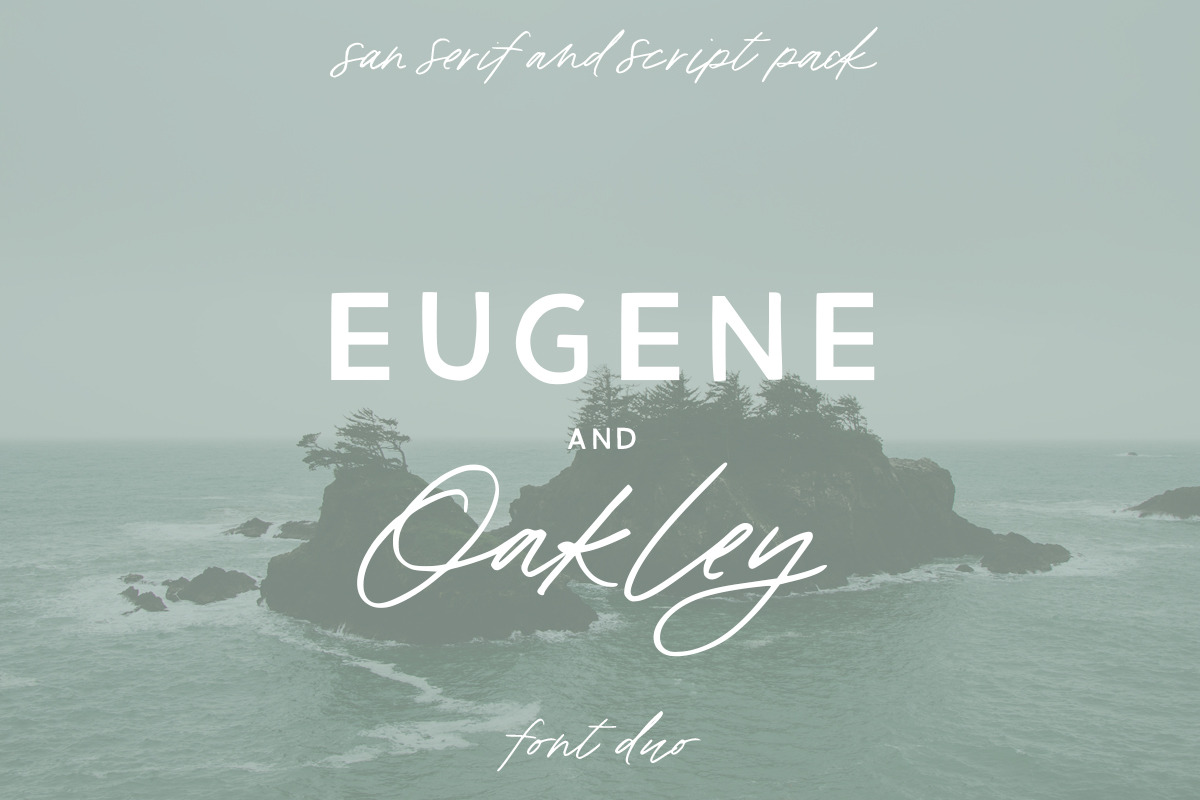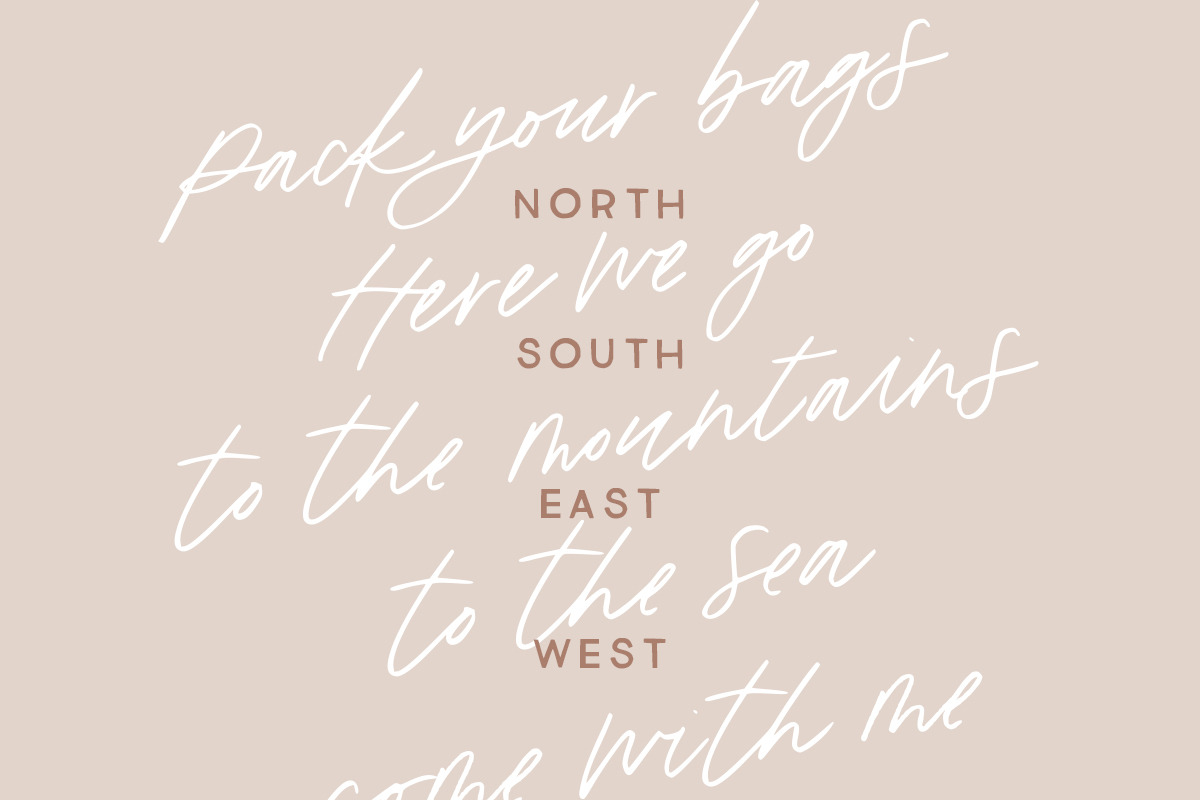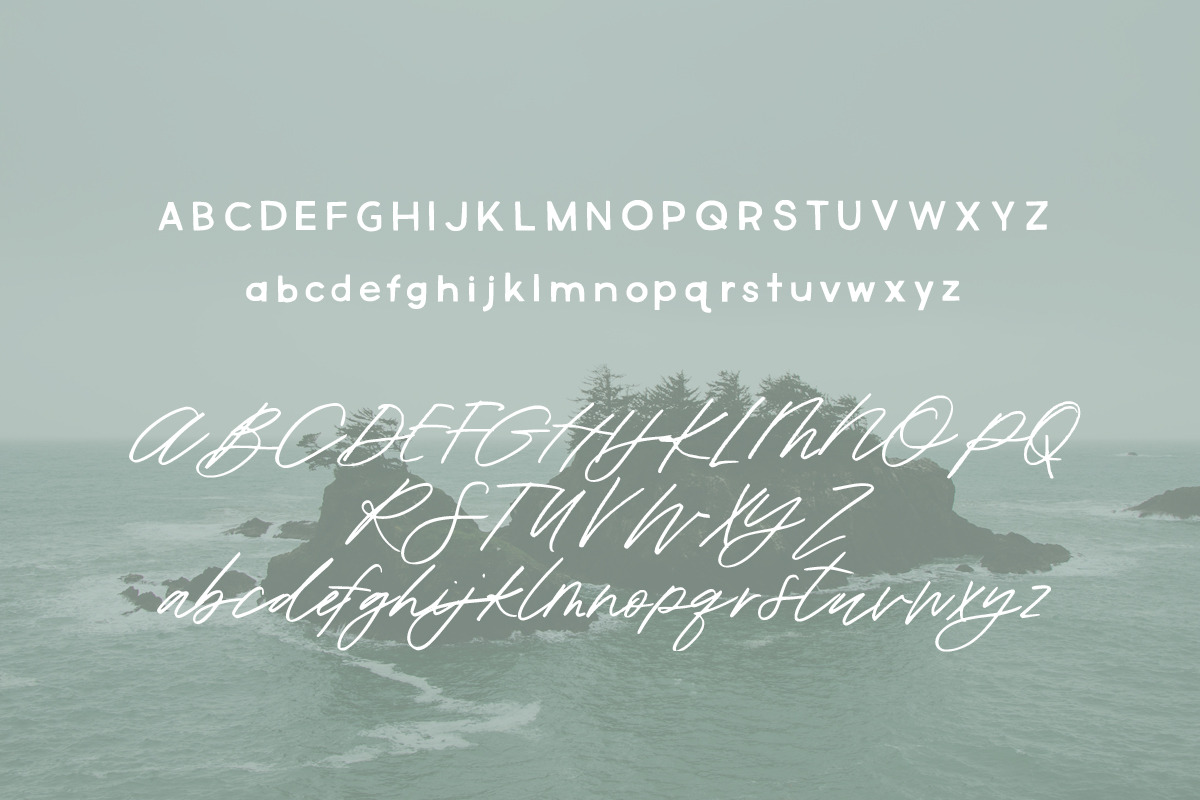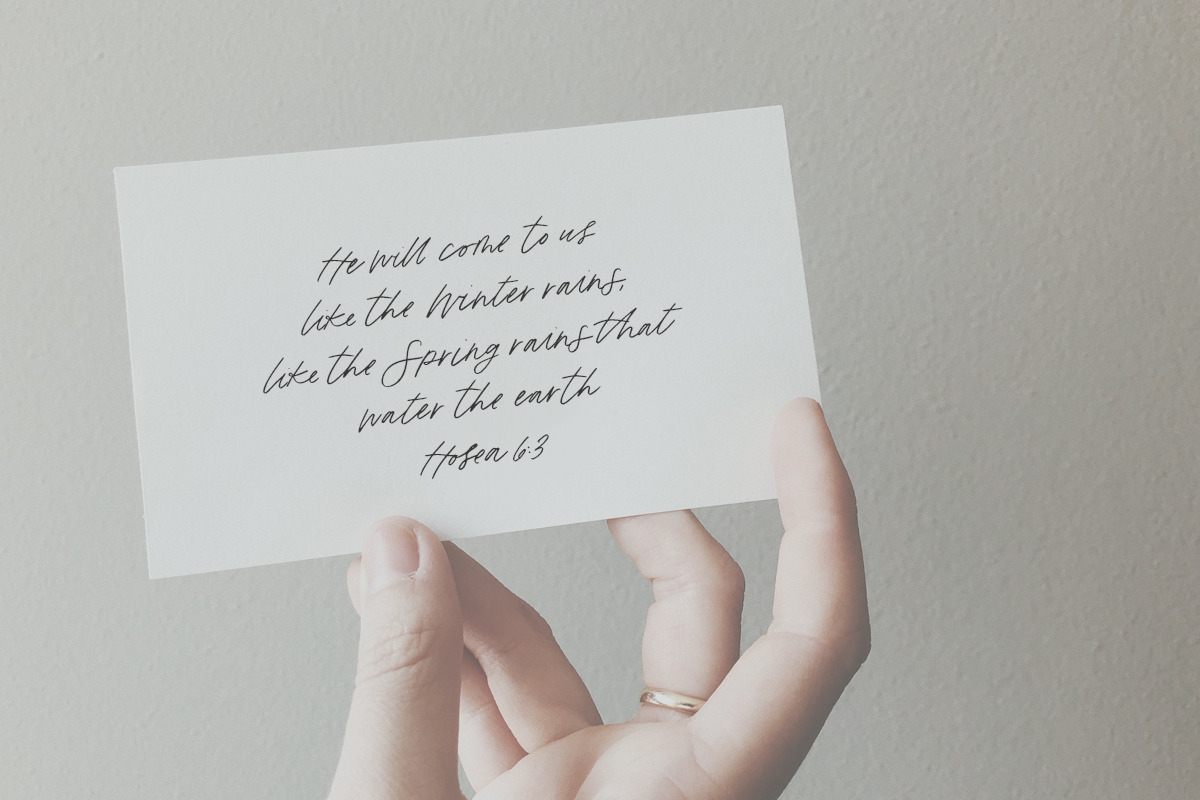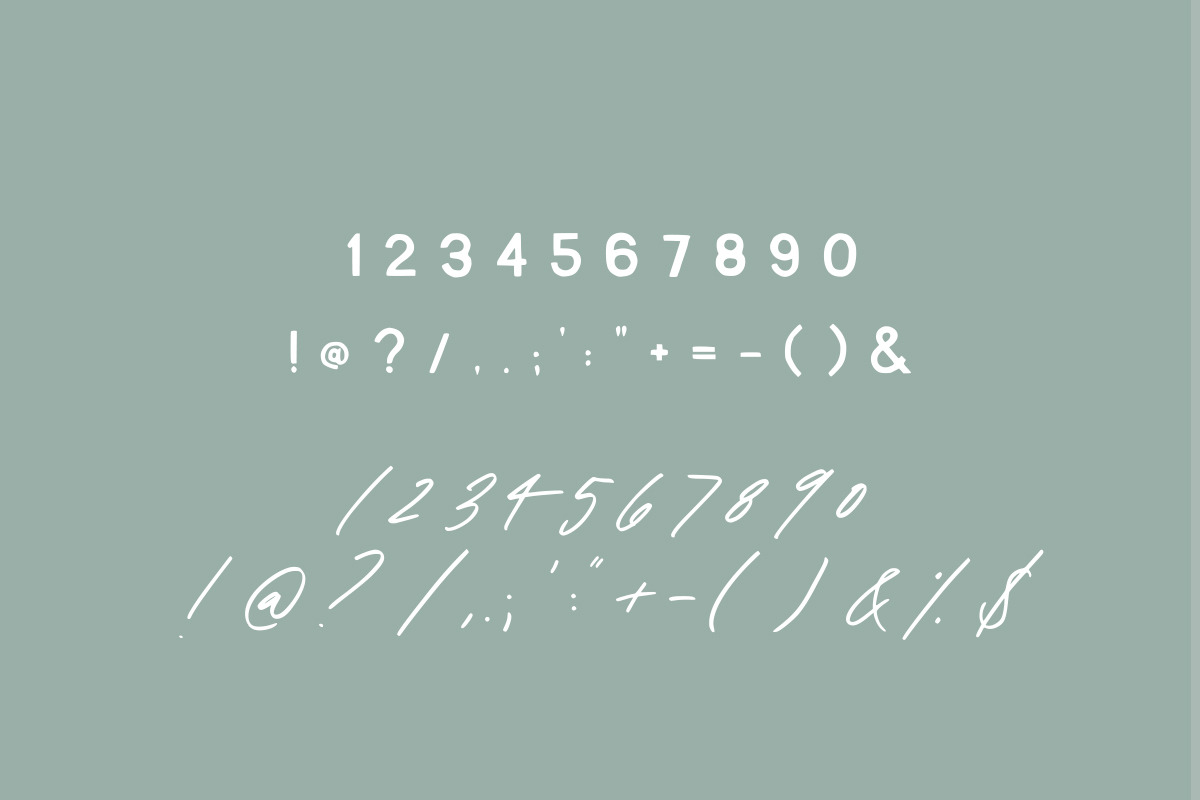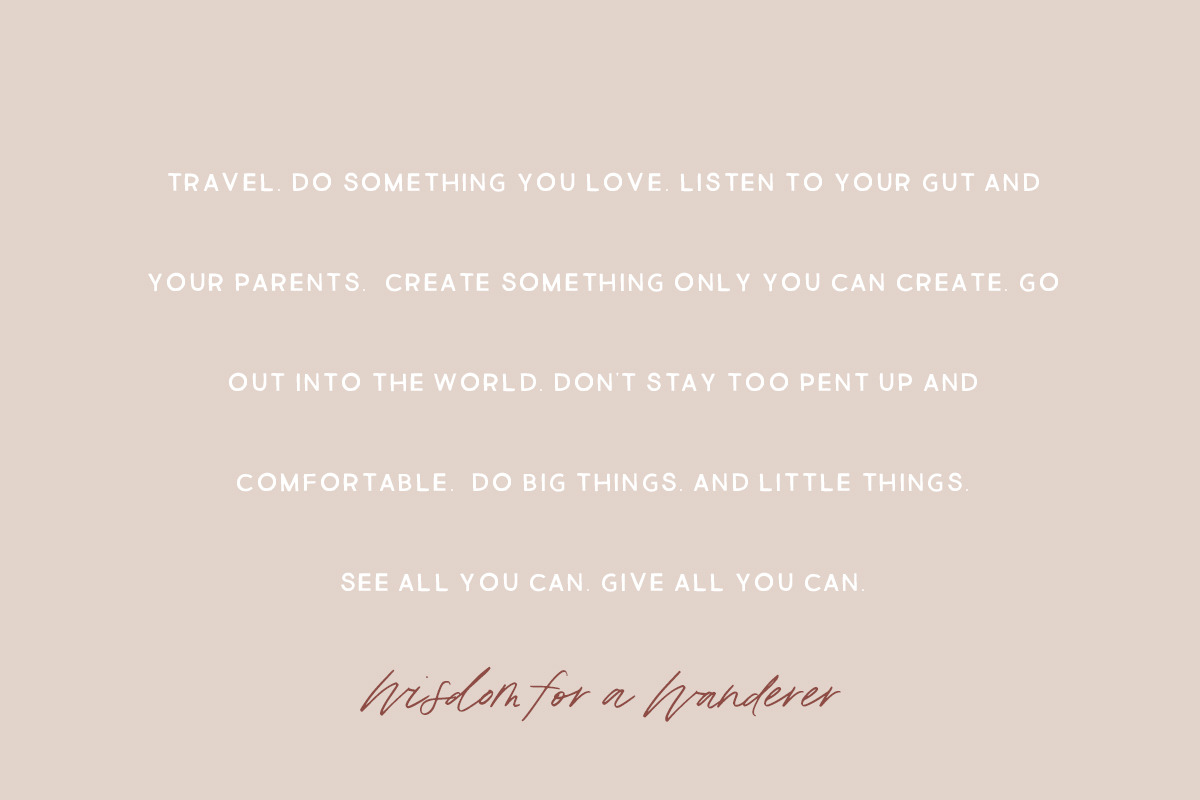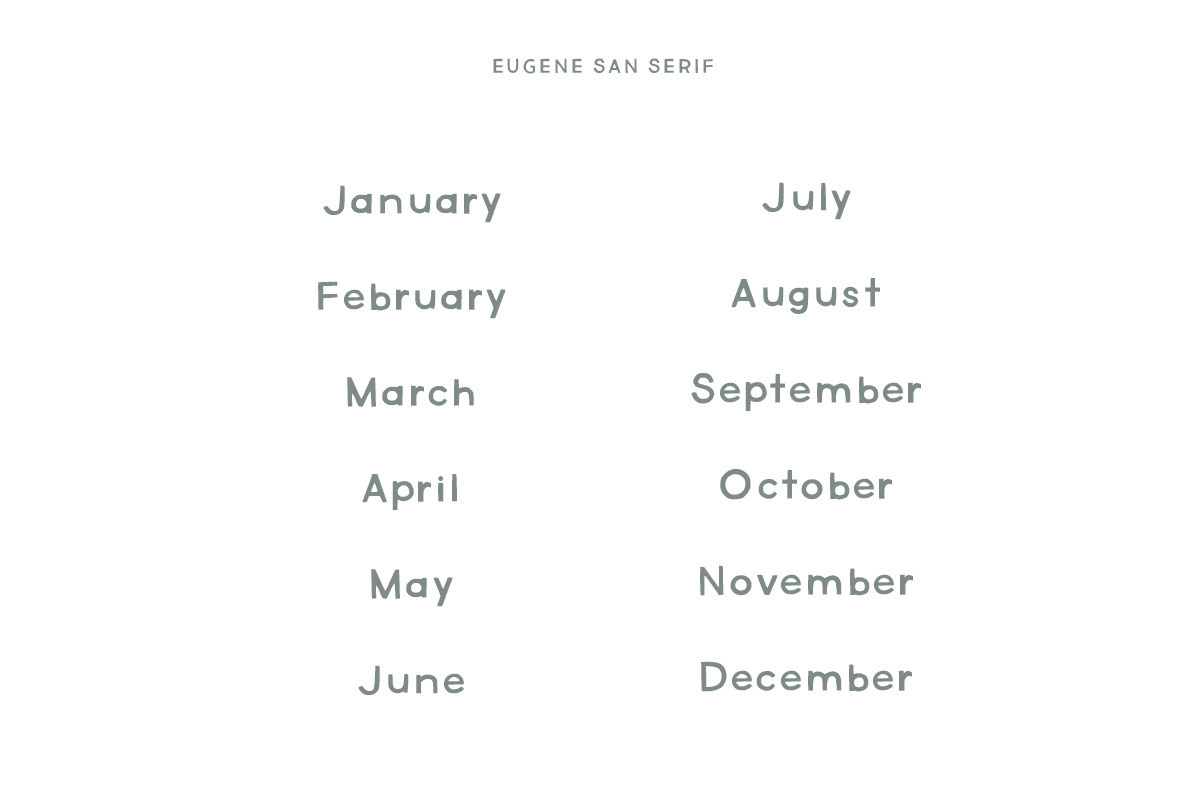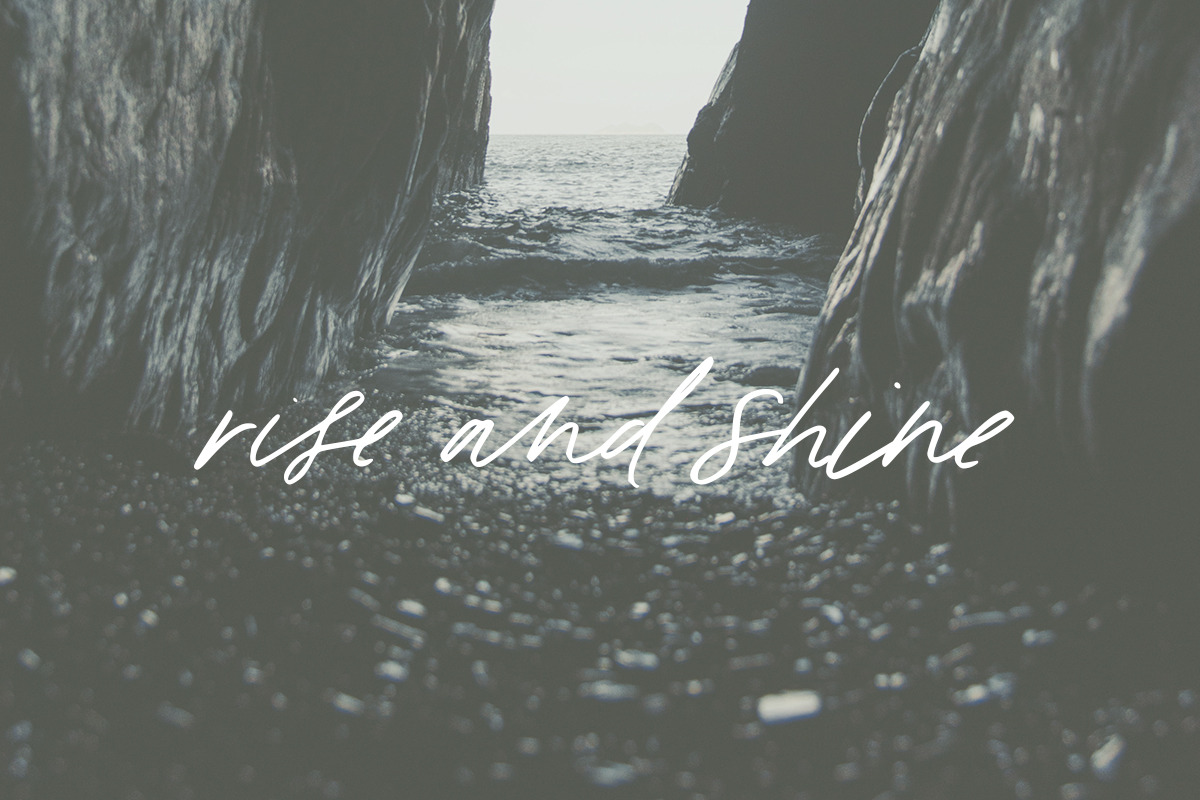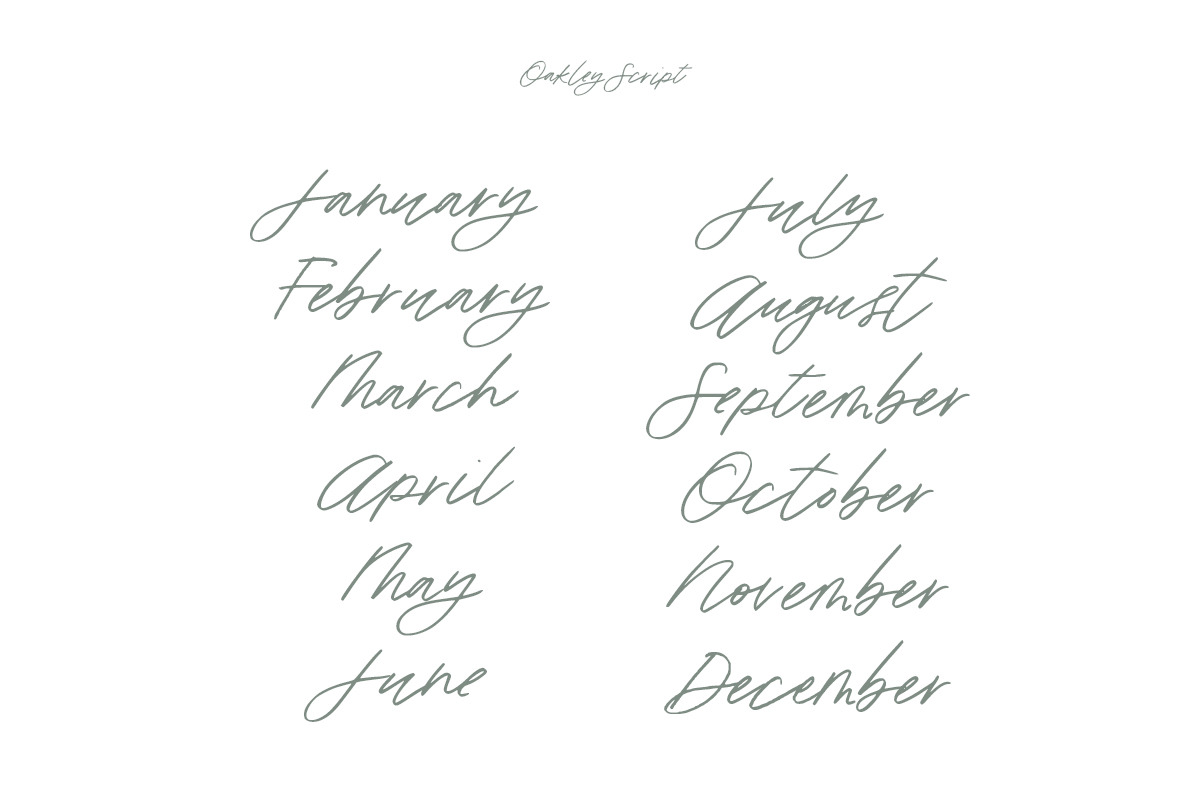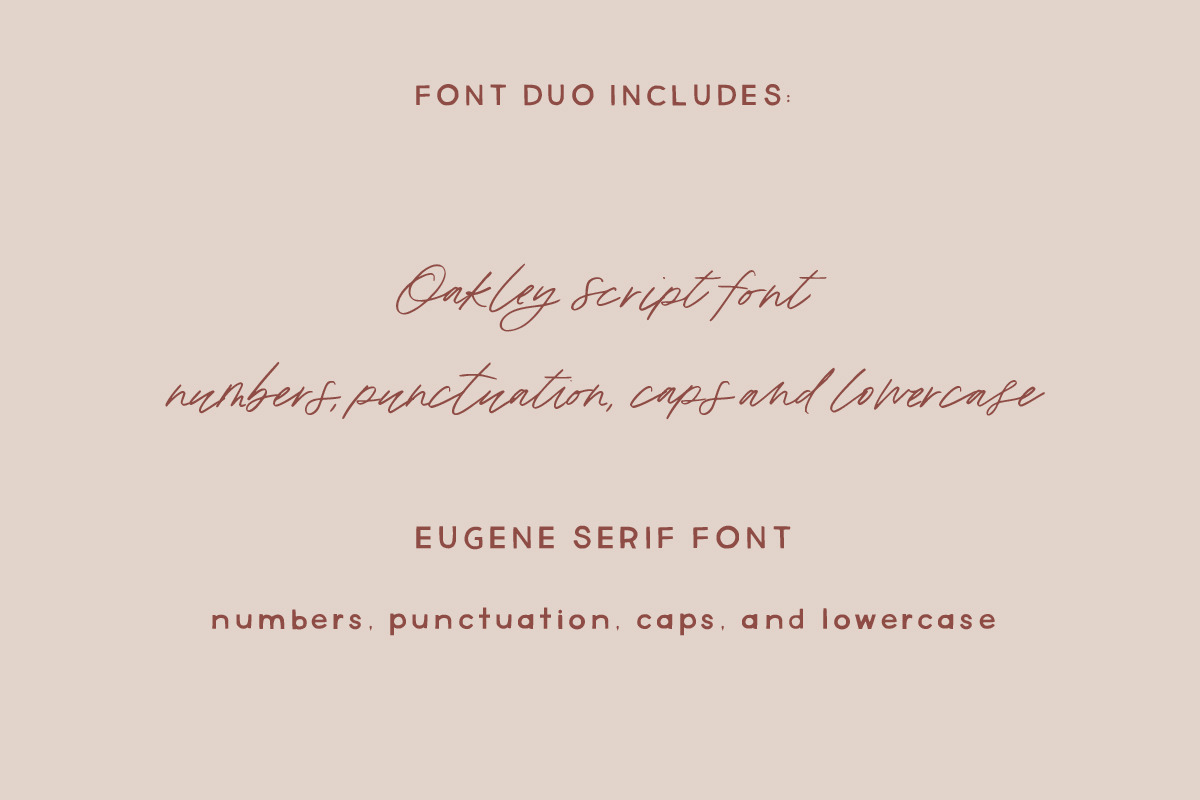
Eugene and Oakley Font Duo
Welcome to the place where EUGENE, a tough but tender san serif, meets OAKLEY, a hand-drawn marker script. Each are hand-drawn and unique, but still legible and familiar.
They pair well together balancing those rough and tumble edges, with those go with the flow curves.
- logos with a hand-drawn look
- signatures
- quotes on social media
This duo is ready to go including:
- Caps and Lowercase
You're all packed and ready to set out on your next creative endeavor, and this fond duo will be perfect company.